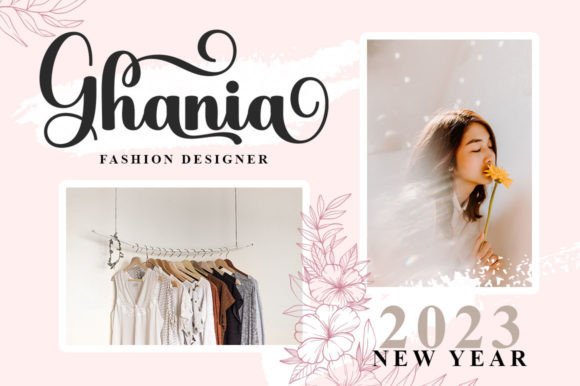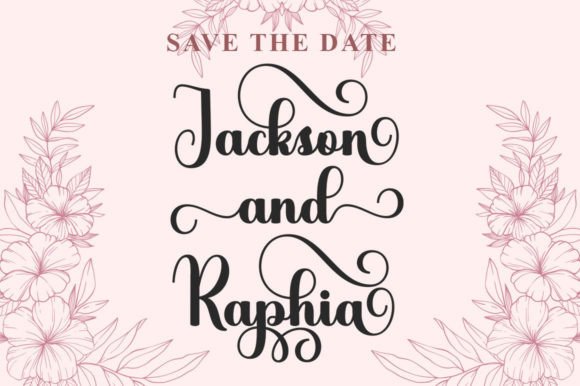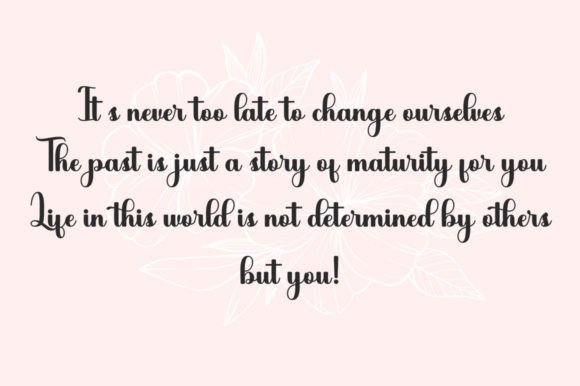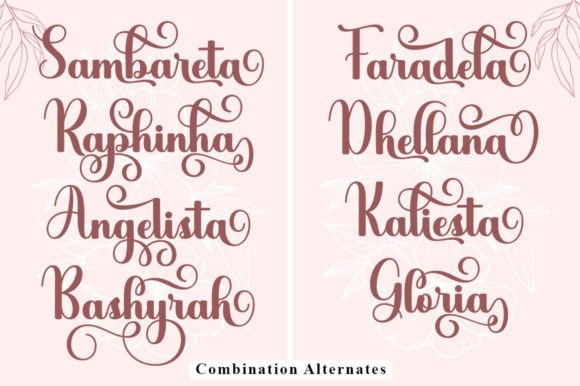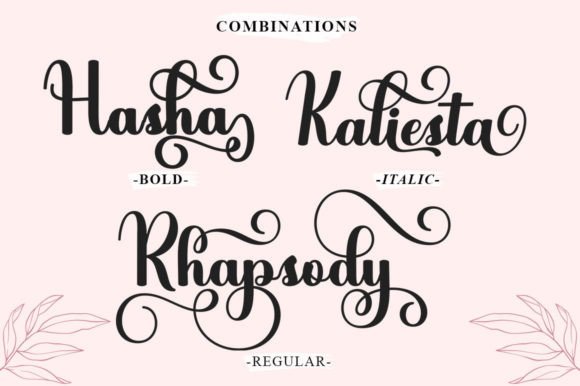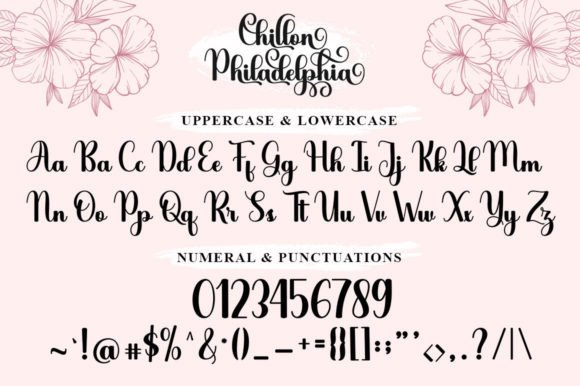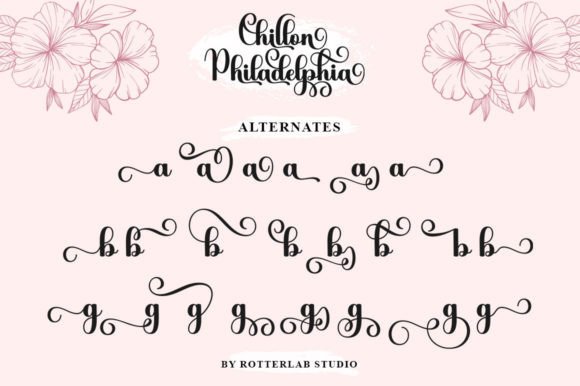
A Chic and Refined Script Font
Chillon Philadelphia is a sophisticated script font designed to bring elegance and grace to your designs. With smooth curves and polished lines, this font has a timeless quality that elevates any project. Its stylish alternates and ligatures give you endless creative options, so you can customize your text and create something truly special.
Whether you’re designing luxury branding, wedding invitations, or stylish social media graphics, Chillon Philadelphia adds a refined touch that feels both modern and classic.
Chillon Philadelphia is a versatile font that adapts beautifully to a range of uses. For weddings, it’s perfect for invitations, menus, and thank you cards. The chic script style sets a romantic and upscale tone for any event.
For branding, this font shines on logos, business cards, and packaging. Its sophisticated look helps your brand stand out and feel premium and memorable.
Use Chillon Philadelphia for inspirational quotes, personal stationery, and product labels. The elegant style makes every word feel important and unique.
On social media, this font ensures your content looks polished and professional. From Instagram stories to Pinterest pins, your posts will grab attention and convey a sense of style.
Clear, Elegant, and Easy to Read
Even with its decorative flourishes, Chillon Philadelphia remains highly legible. Balanced letter spacing and smooth connections between characters keep your text easy to read in any size.
For a clean, modern look, pair this font with a minimalist sans-serif. Use Chillon Philadelphia for headings or feature text, and the sans-serif for body copy. This combination keeps your designs balanced and professional.
To highlight Chillon Philadelphia’s elegant features, use soft colors and simple backgrounds. Shades like cream, blush pink, and soft gray create a sophisticated backdrop that complements the font’s refined curves.
When designing wedding materials or branding assets, consider adding subtle illustrations or delicate lines to enhance the luxury feel. For social media, embrace white space and clean layouts that let the script take center stage.
Think about the mood you want to create. Chillon Philadelphia is perfect for projects that need to feel graceful, stylish, and upscale.
Chillon Philadelphia isn’t just another script font—it’s a powerful design tool that helps you add beauty and sophistication to any project. From elegant wedding stationery to high-end branding, this font adapts effortlessly to your vision.
Adding Chillon Philadelphia to your collection ensures you always have a reliable option when you need to create something polished and memorable. Whether you’re designing for clients or personal projects, this font delivers timeless style and impact.